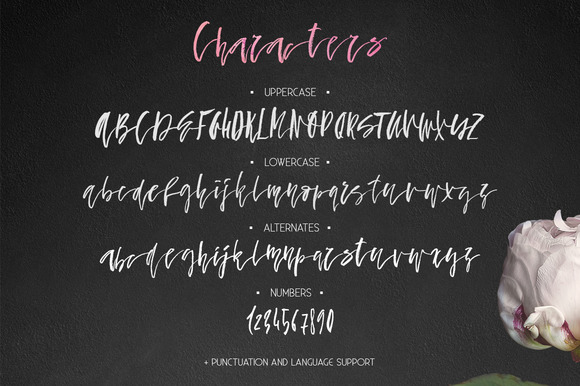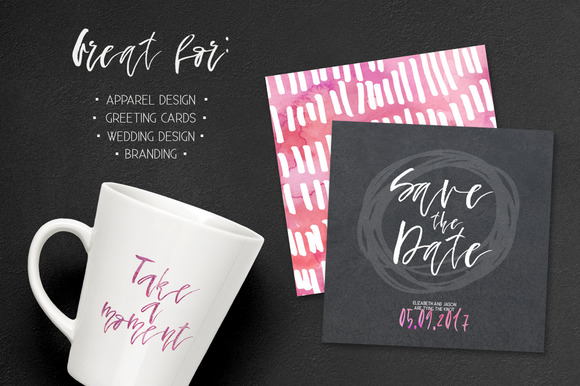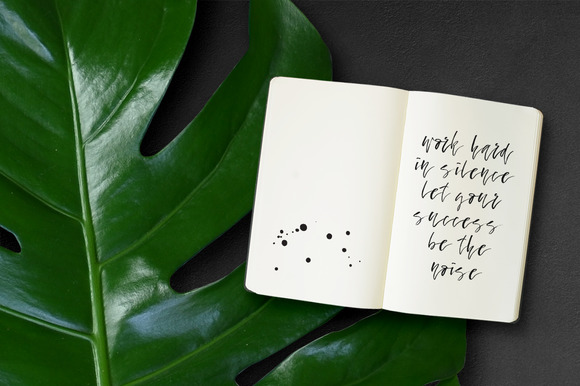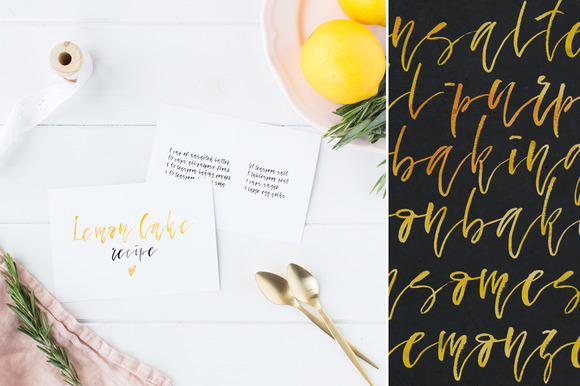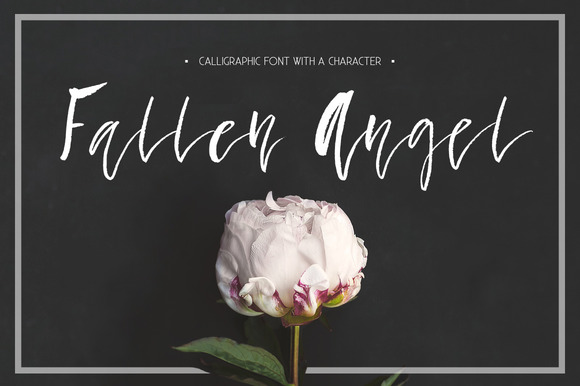
Fallen Angel Font: A Modern Calligraphic Type with a Strong Personality
In the world of typography, fonts play a crucial role in conveying emotions and setting the tone for a message. Among the numerous fonts available, Fallen Angel Font stands out for its unique and strong personality. This modern calligraphic type has gained popularity among designers and crafters for its distinctive features and versatility. In this article, we’ll explore the characteristics of Fallen Angel Font, its uses, and why it’s a favorite among creative professionals.
What is Fallen Angel Font?
Fallen Angel Font is a modern calligraphic typeface that boasts a very strong personality. Its unique baseline and elegant strokes make it a standout in the world of typography. This font is perfect for designers and crafters looking to add a touch of sophistication and elegance to their projects. Whether you’re working on a branding project, creating a logo, or designing a greeting card, Fallen Angel Font is an excellent choice.
Key Features of Fallen Angel Font
So, what makes Fallen Angel Font so special? Here are some of its key features:
- Unique Baseline: Fallen Angel Font features a unique baseline that sets it apart from other calligraphic fonts. This distinctive characteristic gives the font its strong personality and makes it instantly recognizable.
- Elegant Strokes: The font’s elegant strokes and curves add to its sophistication and elegance. The strokes are smooth and flowing, making the font perfect for projects that require a touch of luxury.
- Modern Look: Fallen Angel Font has a modern look that makes it perfect for contemporary designs. Its sleek lines and curves give it a fresh and updated feel that’s sure to appeal to designers and crafters.
- Versatility: This font is versatile and can be used for a wide range of projects, from branding and logos to greeting cards and invitations.
Uses of Fallen Angel Font
Fallen Angel Font is a versatile font that can be used for various projects. Here are some of the ways designers and crafters use this font:
- Branding and Logos: The font’s unique personality and elegant strokes make it perfect for branding and logo design. It’s an excellent choice for businesses looking to create a sophisticated and luxurious brand image.
- Greeting Cards and Invitations: Fallen Angel Font is a popular choice for designing greeting cards and invitations. Its elegant strokes and modern look make it perfect for special occasions like weddings, birthdays, and anniversaries.
- Stationery and Packaging: The font’s versatility makes it suitable for designing stationery and packaging. It’s an excellent choice for businesses looking to create a cohesive brand image.
Why Designers and Crafters Love Fallen Angel Font
So, why do designers and crafters love Fallen Angel Font? Here are some reasons:
- Unique and Recognizable: The font’s unique baseline and elegant strokes make it instantly recognizable. Designers and crafters love using a font that stands out from the crowd.
- Elegant and Sophisticated: Fallen Angel Font adds a touch of elegance and sophistication to any project. Its modern look and versatile nature make it perfect for a wide range of designs.
- Easy to Read: Despite its elegant strokes, Fallen Angel Font is easy to read, making it perfect for body text and headlines.
Fallen Angel Font is a modern calligraphic type that has a very strong personality and features a unique baseline. Its elegant strokes, modern look, and versatility make it a favorite among designers and crafters. Whether you’re working on a branding project, creating a logo, or designing a greeting card, Fallen Angel Font is an excellent choice. Its unique personality and recognizable style are sure to make your project stand out from the crowd.
In conclusion, Fallen Angel Font is a must-have for any designer or crafter looking to add a touch of elegance and sophistication to their projects. Its versatility, readability, and unique style make it perfect for a wide range of designs. So, if you’re looking for a font that will take your project to the next level, consider Fallen Angel Font.